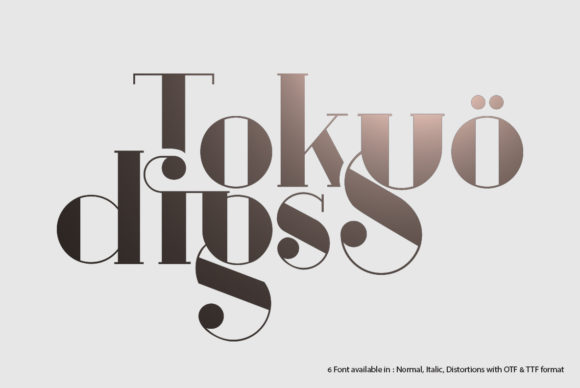
Dive into the world of Tokyo Digs Font, an extraordinary serif font that will captivate your senses and make your designs shine. Created by the ingenious minds at I Do Not Sleep, this font is a testament to the fusion of simplicity and elegance.
Imagine the Tokyo skyline at dusk, the lights reflecting off the Sumida River, creating a captivating blend of warmth and sophistication. Tokyo Digs Font embodies this essence, allowing you to weave tales of elegance into your design projects.
With Tokyo Digs Font, your words will command attention, whether you're crafting a captivating headline or designing an intricate logo. Its bold yet graceful strokes will leave a lasting impression, making your messages unforgettable.
This font is a versatile performer, adapting seamlessly to a myriad of backgrounds. Whether you're working with bold colors or subtle pastels, Tokyo Digs Font will shine through, enhancing your designs with its timeless appeal.
Elevate your designs to new heights with Tokyo Digs Font. Experience the joy of creating captivating visuals that captivate audiences and leave a lasting impression. Let your creativity soar as you explore the endless possibilities of this remarkable font.
Unlock your design potential with Tokyo Digs Font, the key to unlocking typographic excellence. Let your imagination run wild as you craft designs that speak volumes, leaving your audience spellbound.